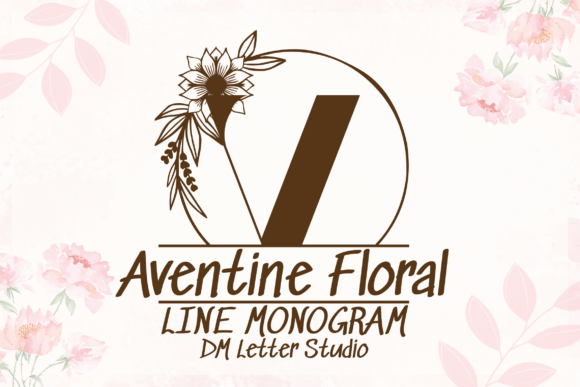
Aventine Floral Line Monogram Font: Elevate Your Designs with Elegance and Nature
In the world of typography, a well-crafted font can elevate your design from ordinary to extraordinary. If you’re a designer or crafter looking for a unique and sophisticated font to add a touch of elegance to your projects, look no further than the Aventine Floral Line Monogram Font. This refined decorative serif font combines minimalist line art with graceful floral elements, making it the perfect choice for modern monograms, wedding branding, luxury logos, and sophisticated stationery.
What is Aventine Floral Line Monogram Font?
Aventine Floral Line Monogram Font is a beautifully designed font that brings together elegance, nature, and timeless design in perfect harmony. Each uppercase letter is meticulously detailed with fine botanical illustrations, creating a stunning visual effect that is both modern and luxurious. The font’s floral line art design features thin, elegant linework intertwined with floral embellishments, adding a touch of sophistication to any design.
Key Features of Aventine Floral Line Monogram Font
- Floral Line Art Design: The font’s unique design combines thin, elegant linework with floral embellishments, creating a beautiful and intricate visual effect.
- Serif Monogram Style: The uppercase serif characters are designed specifically for ornamental and initial-based use, making it perfect for monograms and logos.
- Minimal & Detailed: The font’s clean outlines and subtle botanical intricacy create a modern-luxury look that is both elegant and sophisticated.
Ideal Use Cases for Aventine Floral Line Monogram Font
Aventine Floral Line Monogram Font is an incredibly versatile font that can be used in a variety of design projects. Some ideal use cases include:
- Wedding Logos: Create stunning wedding logos and branding materials that exude elegance and sophistication.
- Brand Initials: Use the font to create beautiful brand initials and monograms that make a lasting impression.
- Personal Monograms: Design personalized monograms and stationery that reflect your unique style and personality.
- Upscale Packaging: Add a touch of luxury to your packaging designs with this beautiful font.
- Invitations: Create stunning invitations and wedding stationery that set the tone for a special occasion.
- Botanical-Themed Designs: Use the font to create beautiful botanical-themed designs that showcase your creativity and style.
Why Choose Aventine Floral Line Monogram Font?
With so many fonts available, why choose Aventine Floral Line Monogram Font? Here are just a few reasons why this font stands out:
- Unique Design: The font’s unique combination of minimalist line art and floral elements makes it a standout in any design.
- Elegant and Sophisticated: The font’s elegant and sophisticated design makes it perfect for high-end designs and luxury brands.
- Versatile: The font can be used in a variety of design projects, from wedding branding to packaging design.
- Easy to Use: The font is easy to use and can be easily integrated into your design workflow.
In conclusion, Aventine Floral Line Monogram Font is a stunning decorative serif font that combines elegance, nature, and timeless design in perfect harmony. With its unique floral line art design, serif monogram style, and minimal yet detailed approach, this font is perfect for designers and crafters looking to add a touch of sophistication to their projects. Whether you’re creating wedding branding, luxury logos, or sophisticated stationery, Aventine Floral Line Monogram Font is the perfect choice.